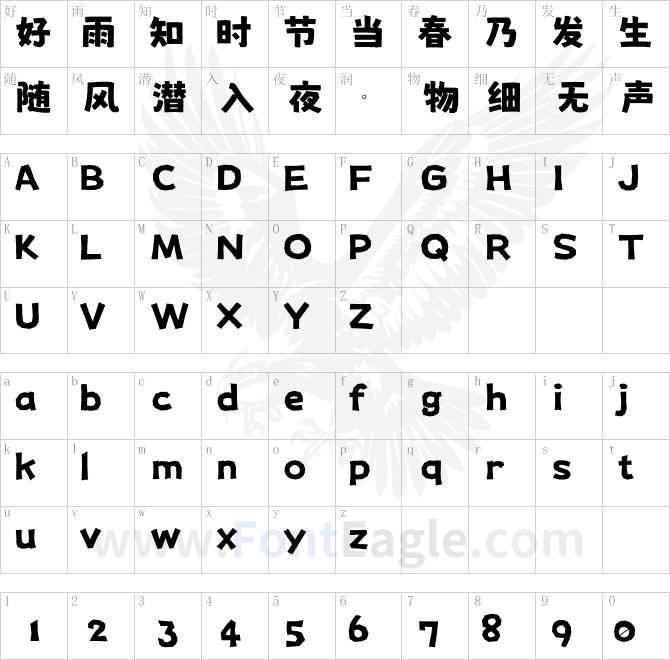
- Font name:Nishiki-teki
马克笔手绘POP字体Nishiki-teki is a great font, widely used in graphic design, single-page menu design, poster design and other fields, and is deeply loved by designers.马克笔手绘POP字体Nishiki-teki download.